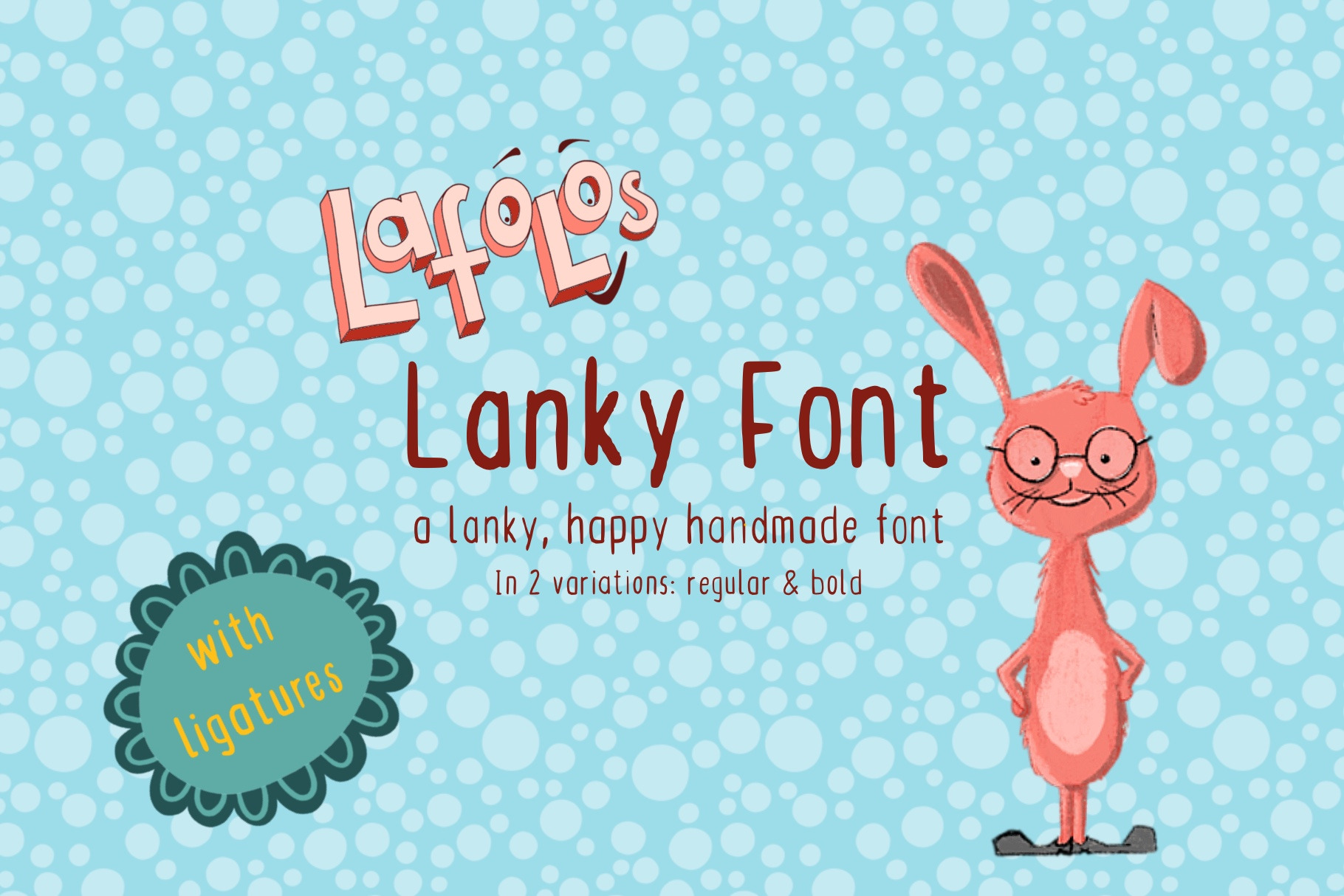
LAFOLOs Lanky Font
LAFOLOs Lanky Font - a lanky happy handmade font
A fun and happy handmade font. I drew each letter and every type myself to bring together a lovely typeface for your design projects. The font comes in 2 variations: Bold & Regular.
Use the font to create individual designs for headlines in chapter books, greeting cards, notebooks, stickers and so much more.